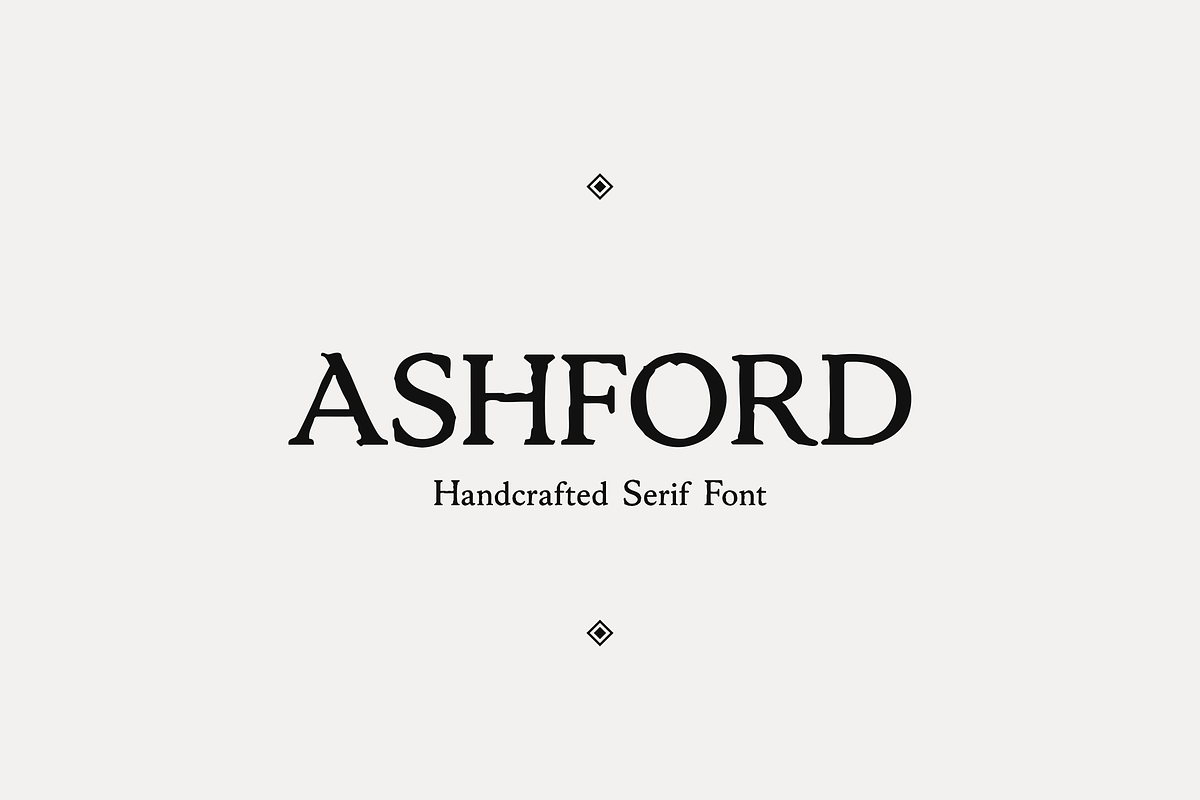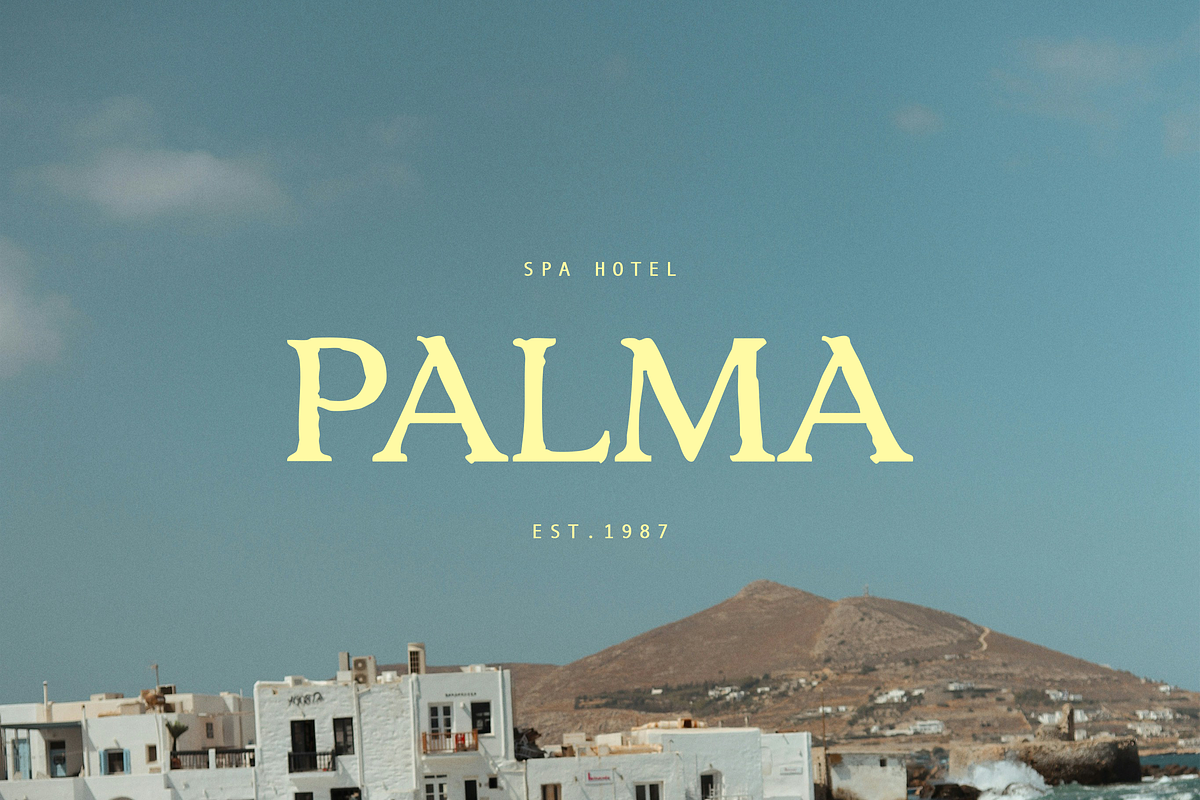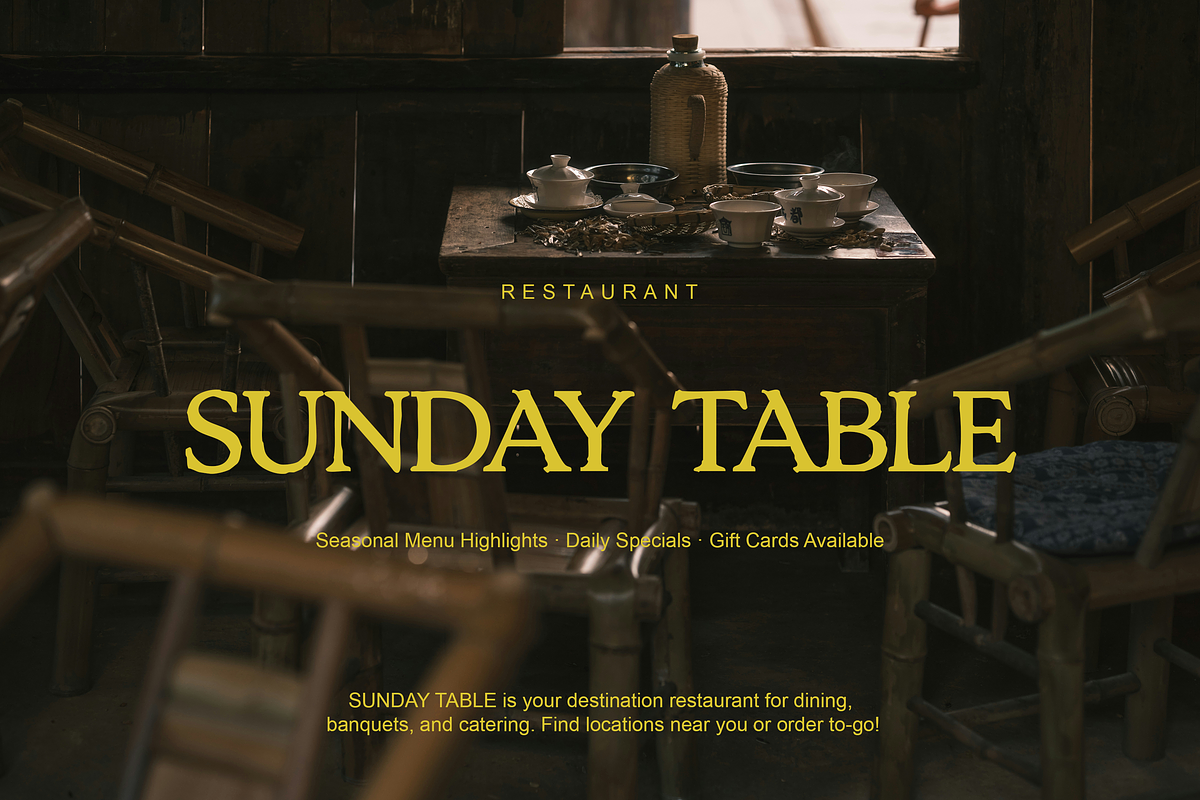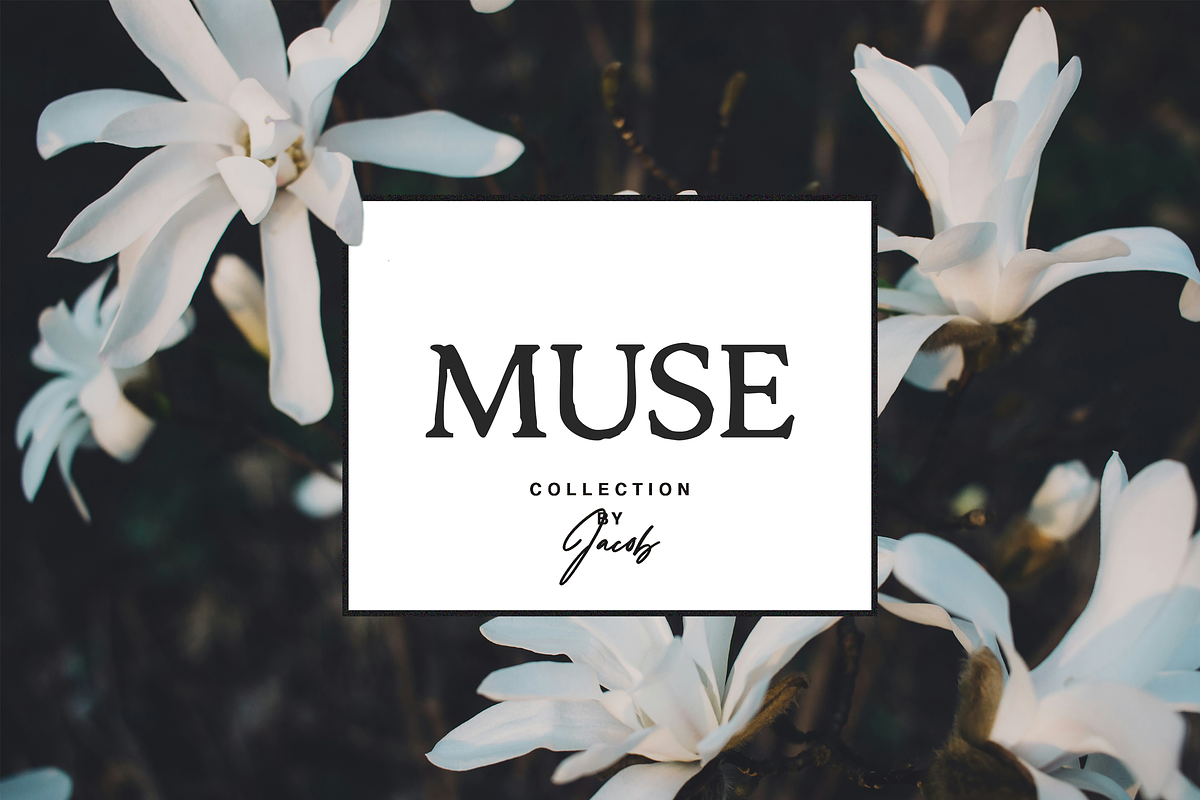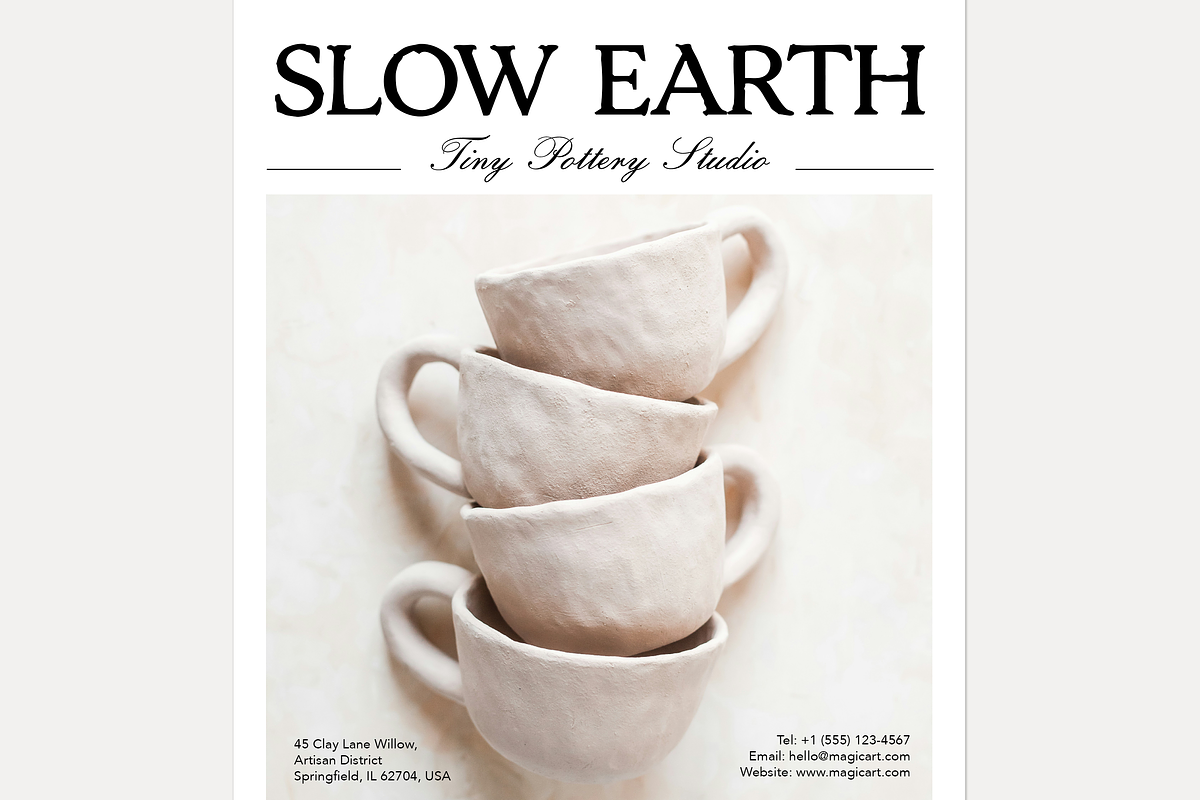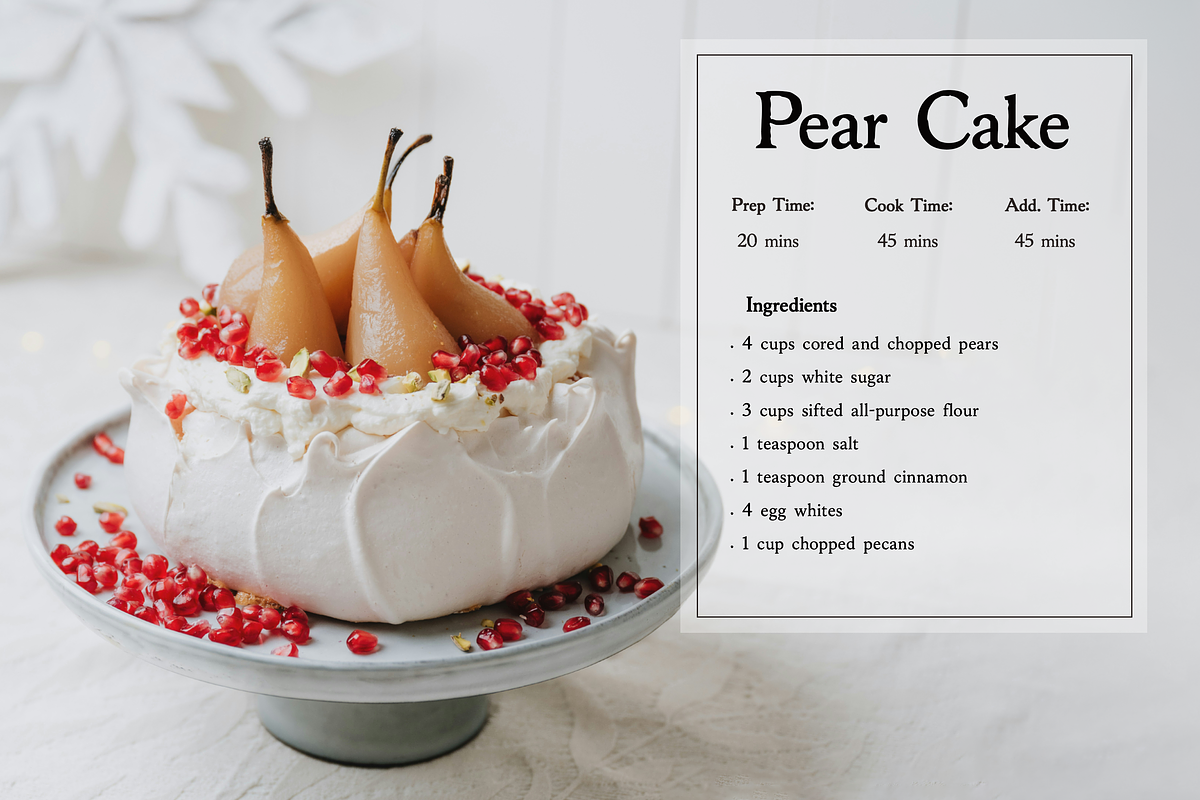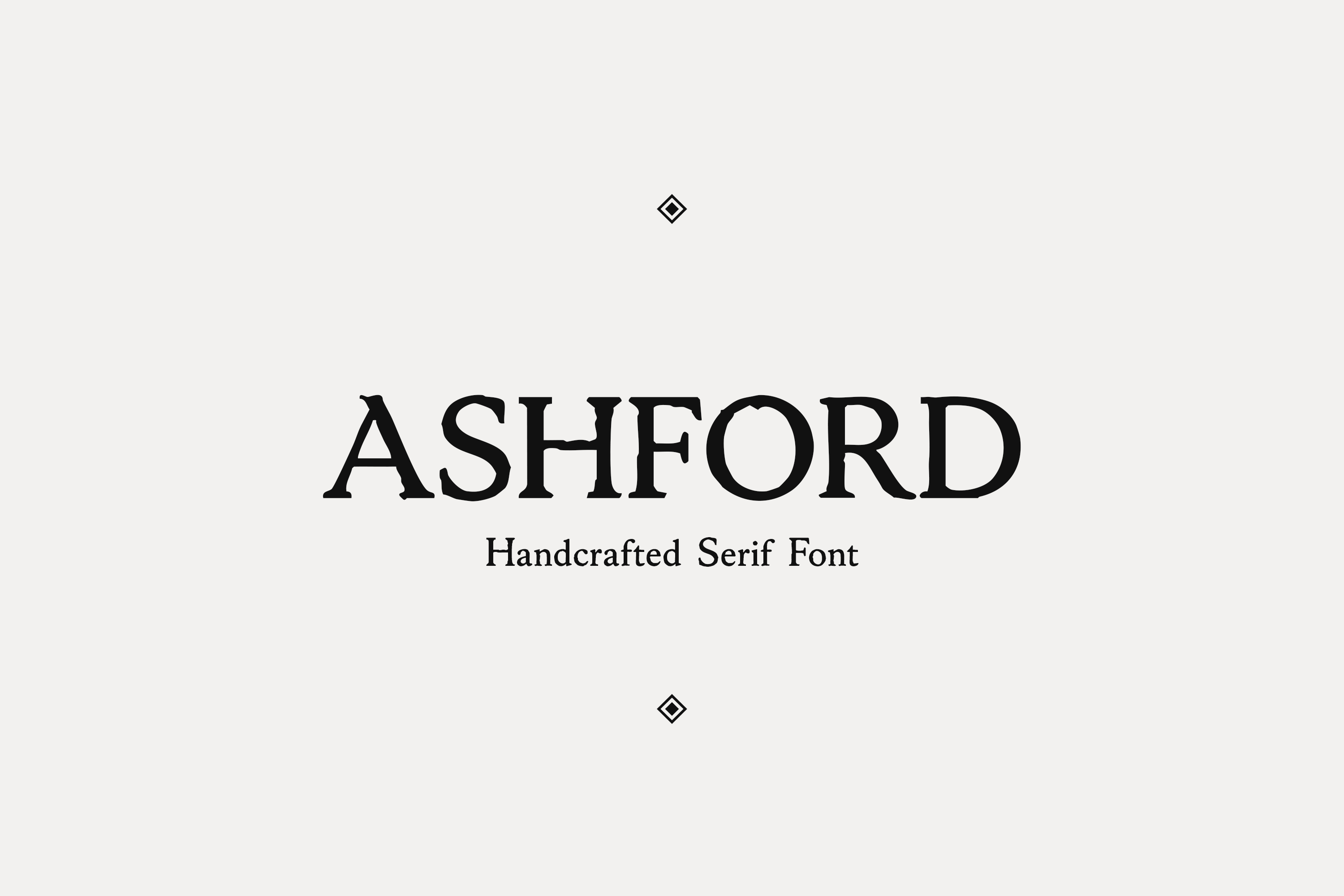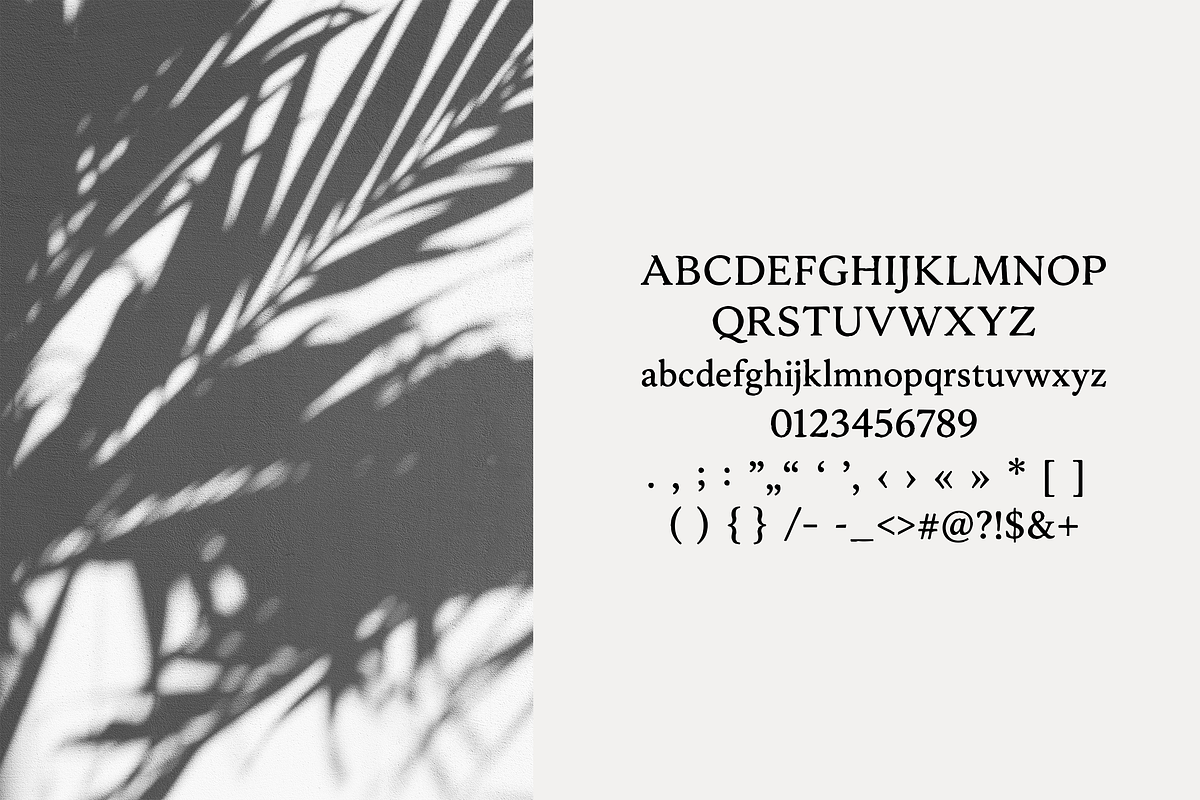
Ashford Serif Font
ASHFORD is a refined vintage serif font with an elegant handcrafted feel. Inspired by old-world botanical branding, cozy restaurants, pottery studios, apothecary labels, and rustic packaging, this typeface is perfect for logos, invitations, product labels, menus, posters, and social media designs.
Its slightly imperfect letterforms give your projects a warm, artisanal, and timeless look. Ideal for designers, small brands, wedding stationery, handmade shops, and vintage-inspired branding.